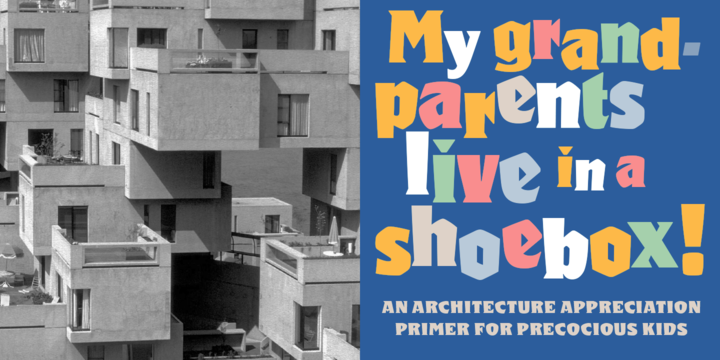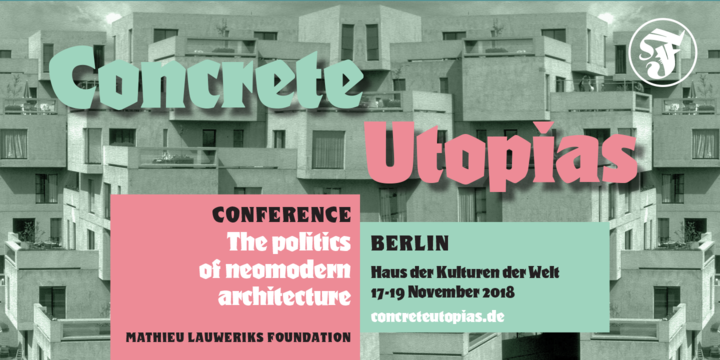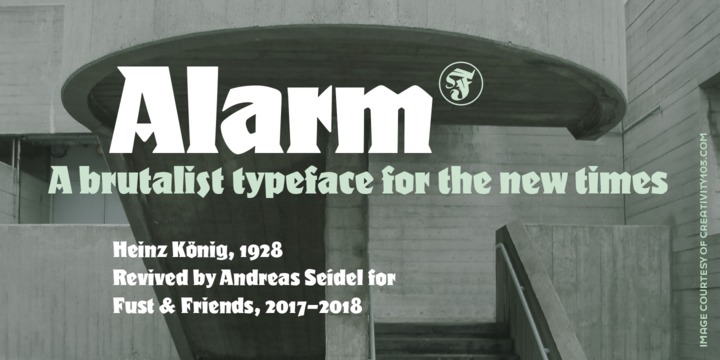
In the late 1920s the Trennert foundry in Hamburg-Altona, Germany, commissioned several fonts from freelancer Heinz König.
His chunky, striking Alarm typeface and its blackletter-style companion, Wiking, are among the most remarkable display faces from that period, and were briefly quite successful across Germany.
The 1928 Alarm was probably designed to compete with Bertholds successful Fanfare from the previous year, drawn by Louis Oppenheim, but different in every detail.
More Alarm has never known a serious digital version, until Fust & Friends decided to have a go, after collecting vintage specimens of the face, and doing some test printings with an authentic 72pt-size metal version.
Our friend Andreas Seidel (principal of astype) did an exemplary job, homogenizing the character set without abandoning its quirkiness, expanding the character set with the usual contemporary symbols as well as diacritics for most languages that use the Latin alphabet, and adding mediaeval and tabular figures.
An advertising classic is ready for a new life.